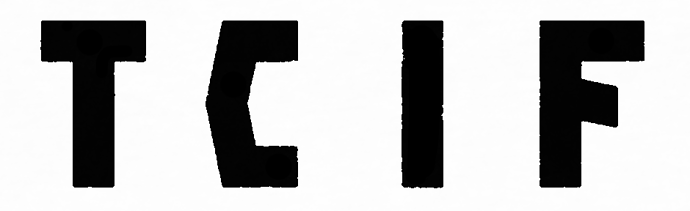
Hi, anyone know what font this is? It looks kinda ancient Greek or Viking style.
Anvil is close, but the F has been modified.
Found it. Slash, by Ronald Vermeijs, available on Pixel Buddha.